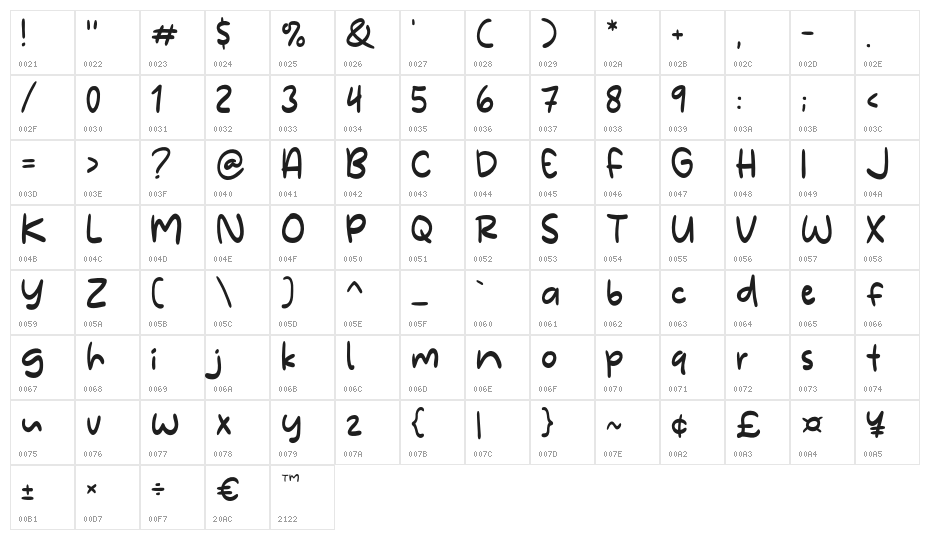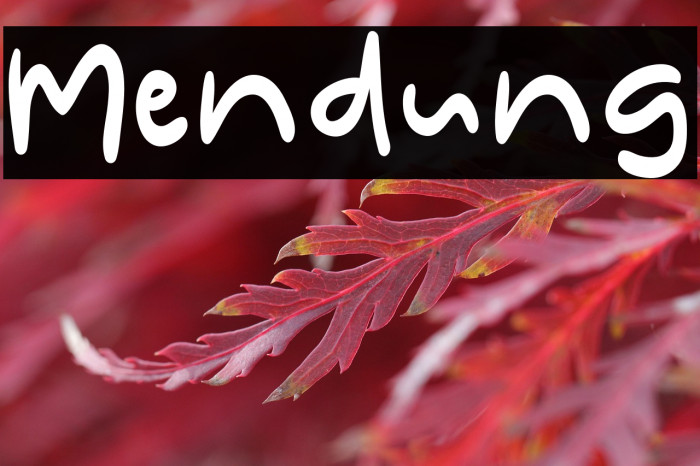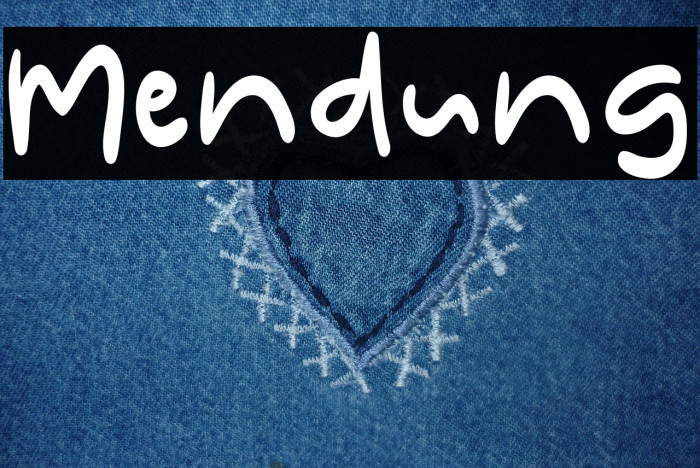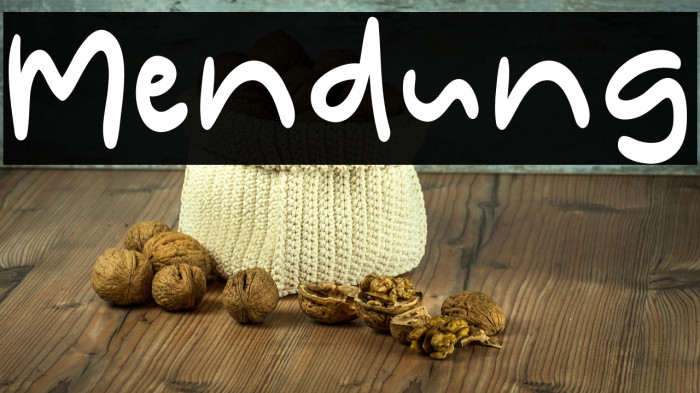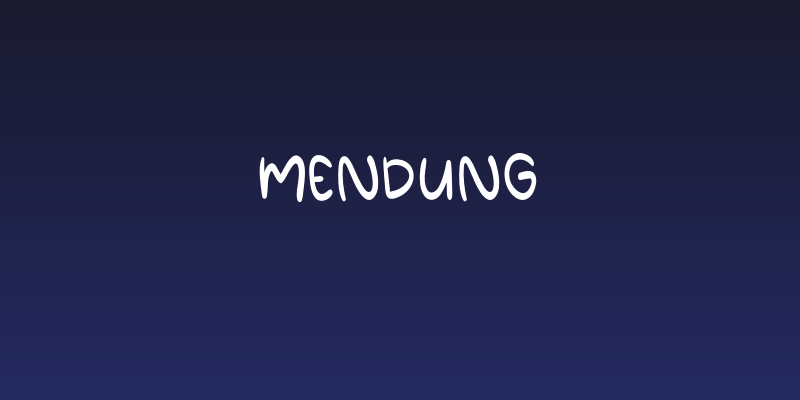
Mendung Font
Mendung Description
This font features a playful and casual handwritten style, characterized by its rounded and slightly irregular letterforms. The strokes are smooth and consistent, giving it a friendly and approachable appearance. The uppercase and lowercase letters maintain a uniform height, contributing to its readability. The numbers and special characters are designed with the same playful aesthetic, making it suitable for informal and creative projects. Its overall style is reminiscent of a personal touch, ideal for conveying warmth and friendliness.
| Overall Style | Casual, Playful |
| Use Case | Headlines, Informal text, Creative projects |
| Proposed Projects | Ideal for greeting cards, children's books, casual branding, and social media graphics. |